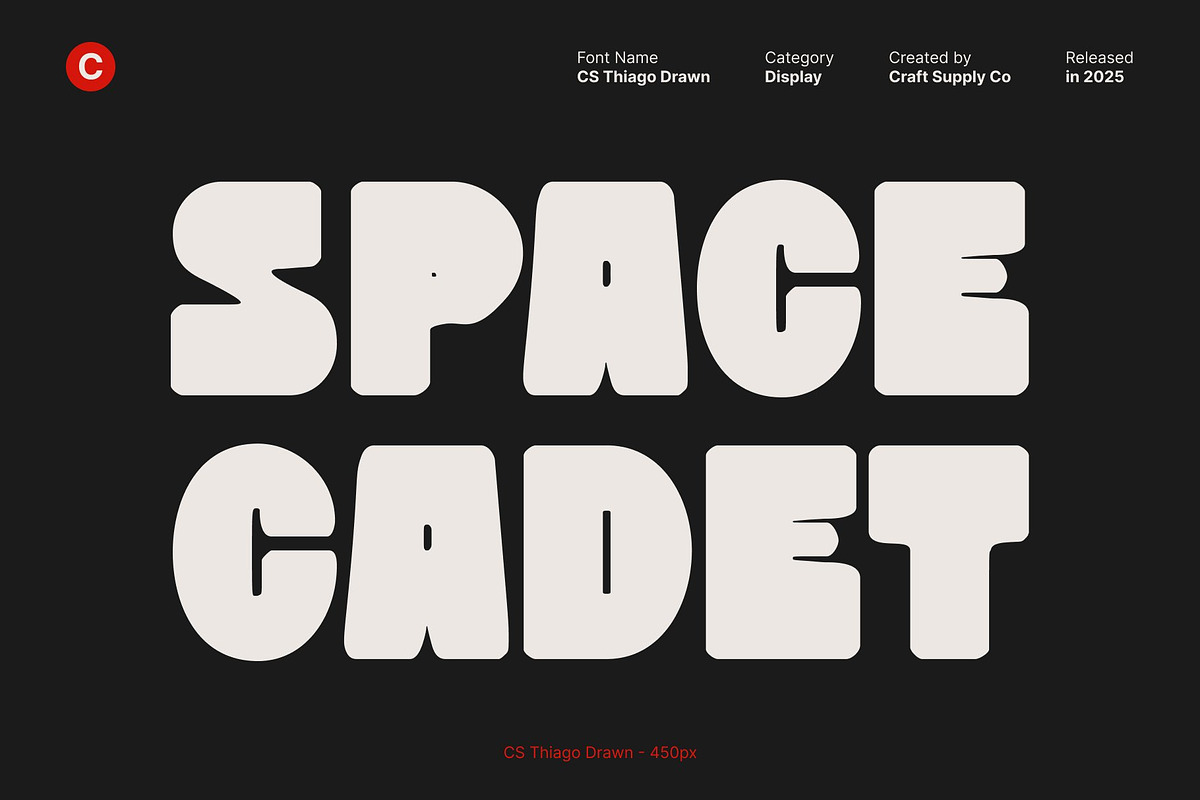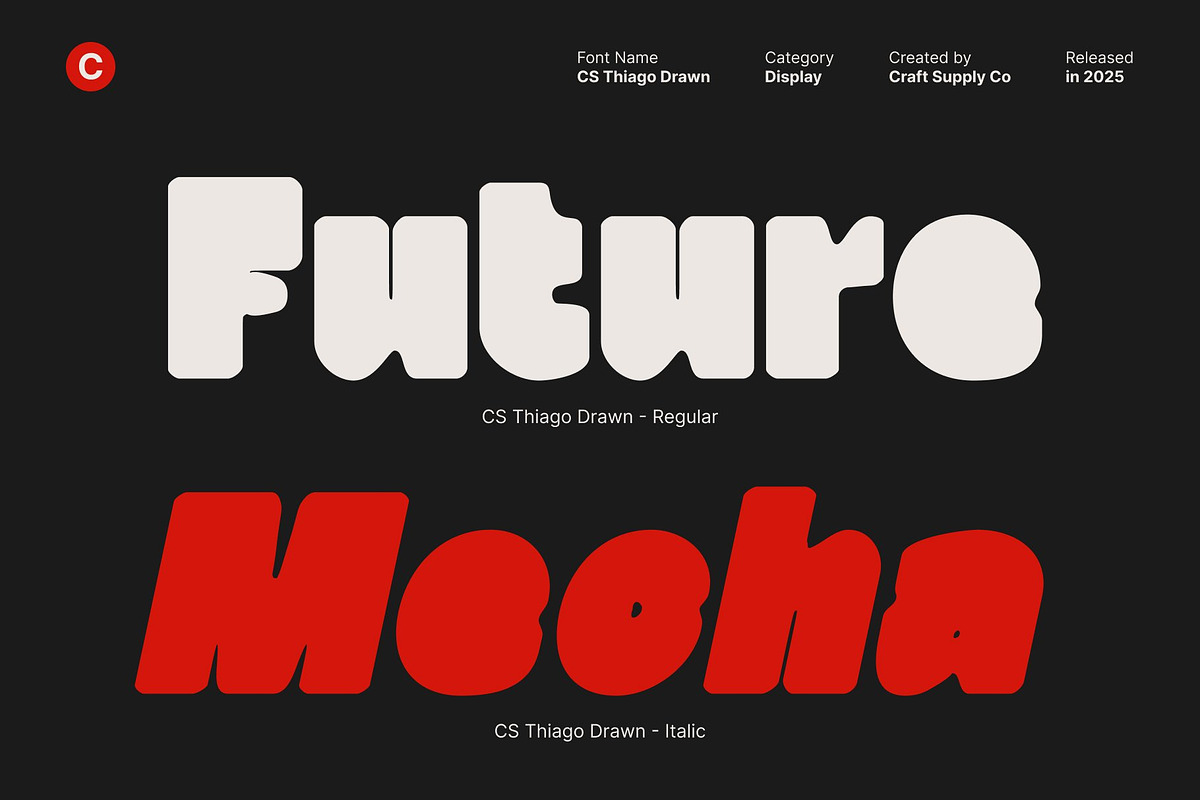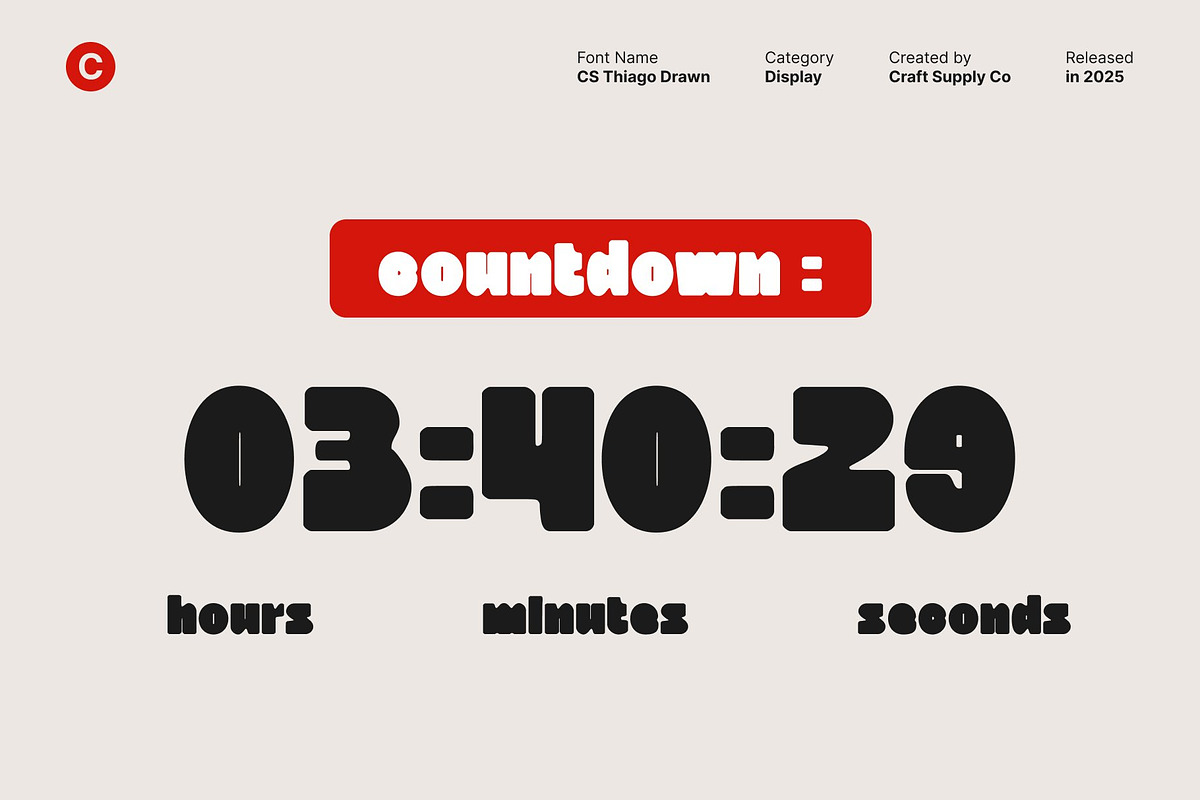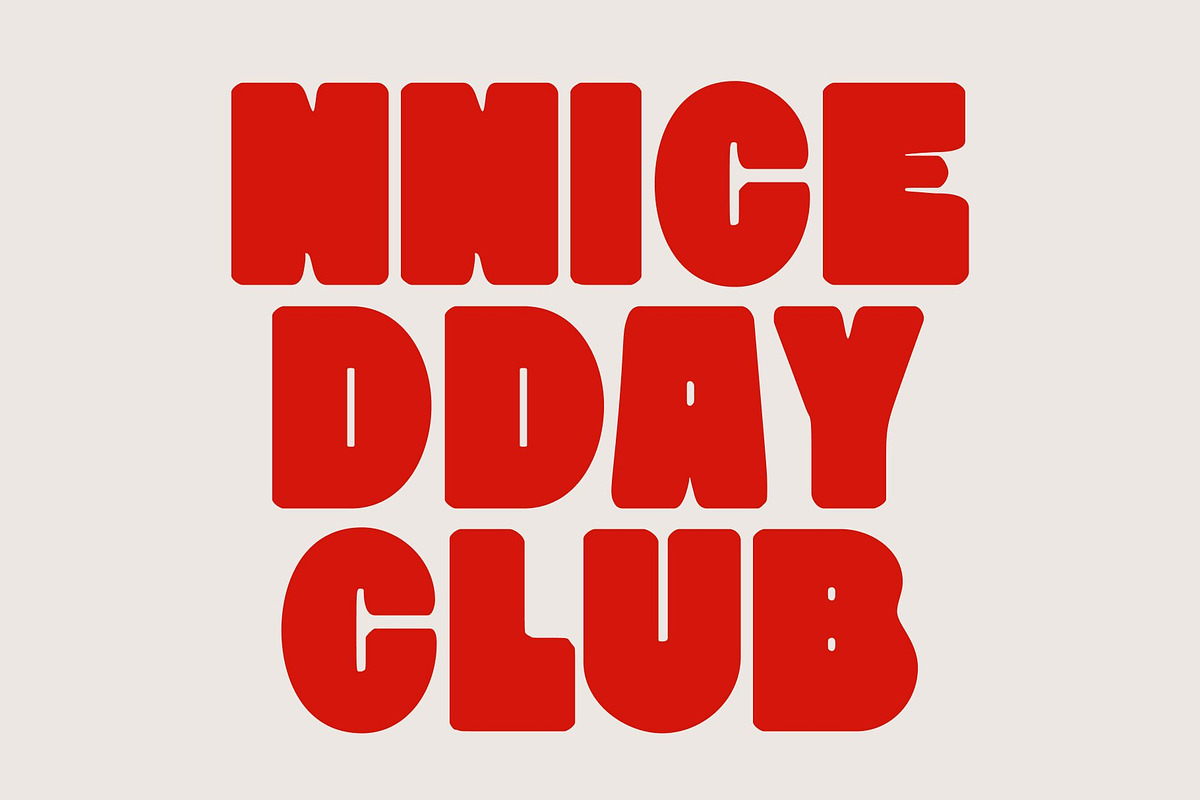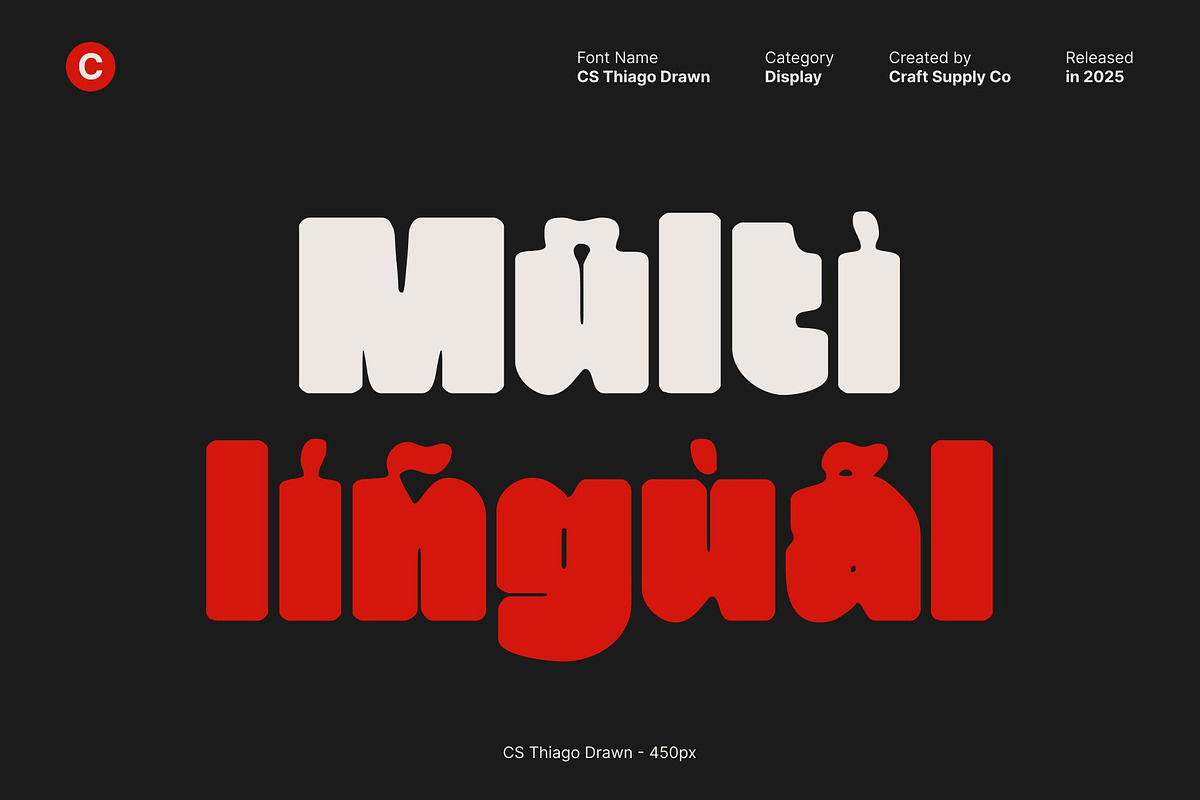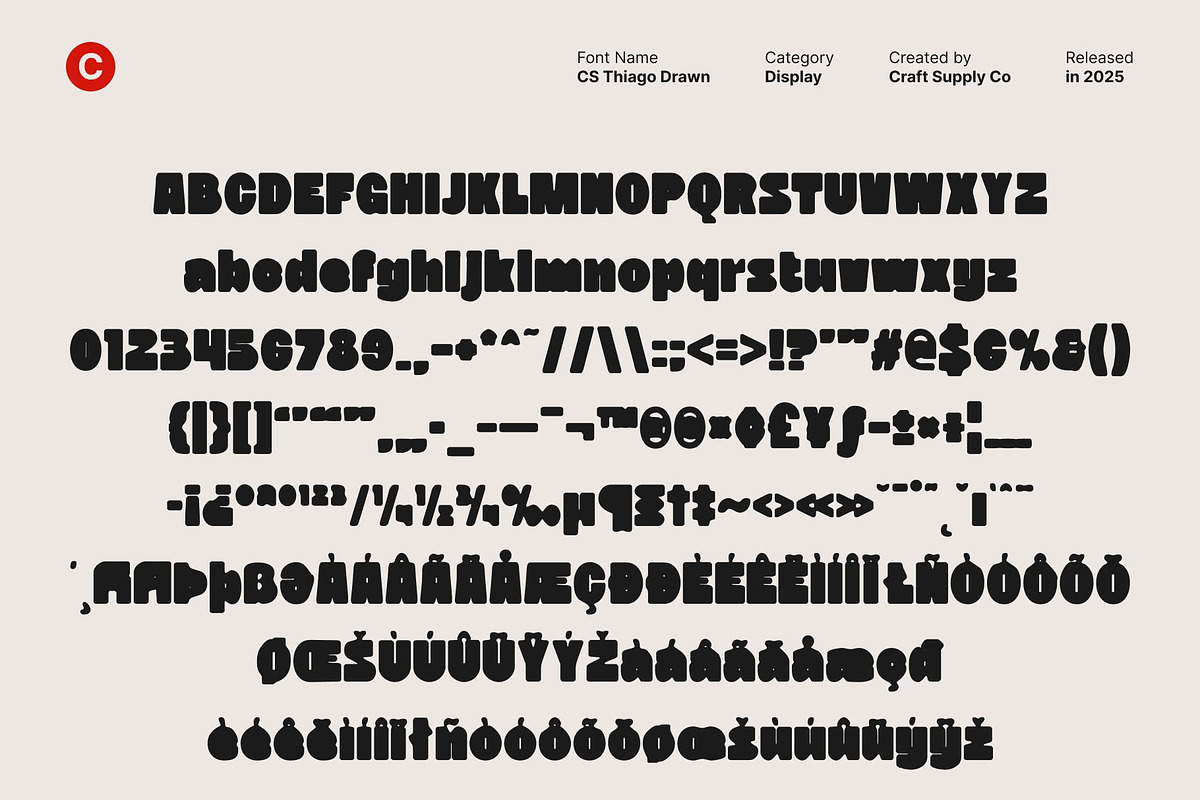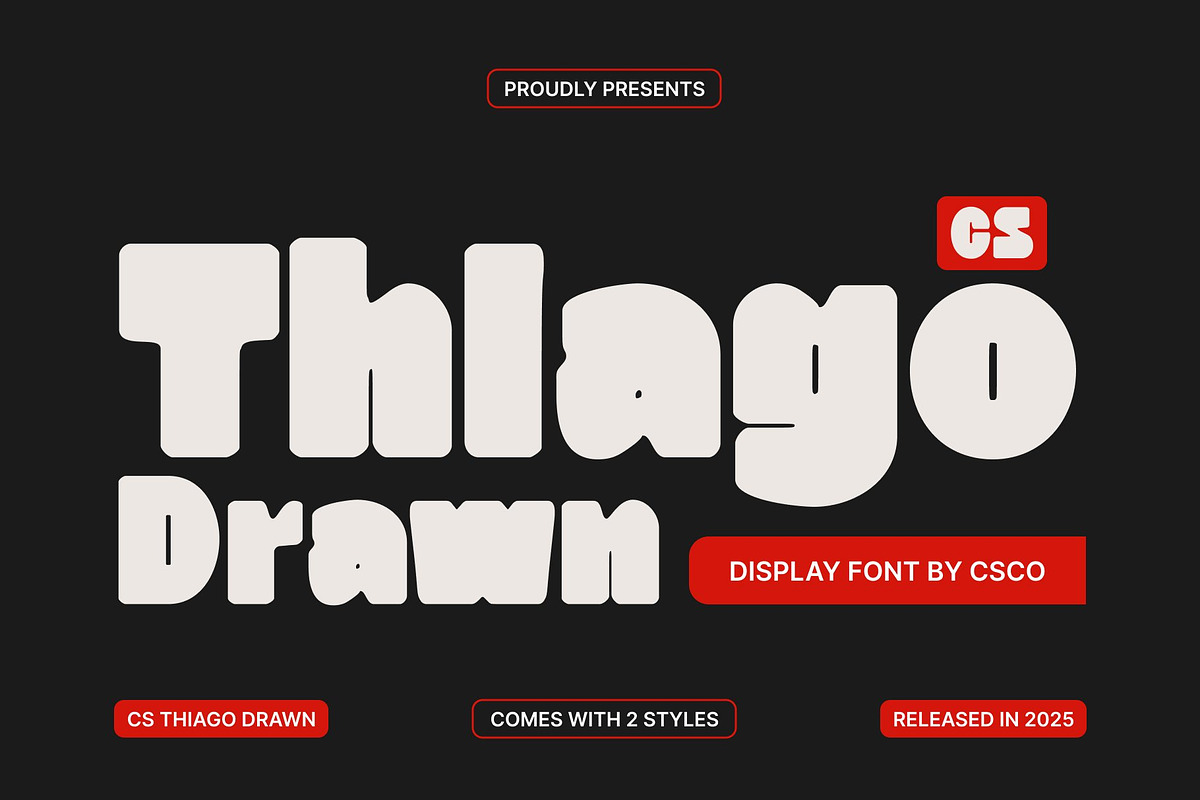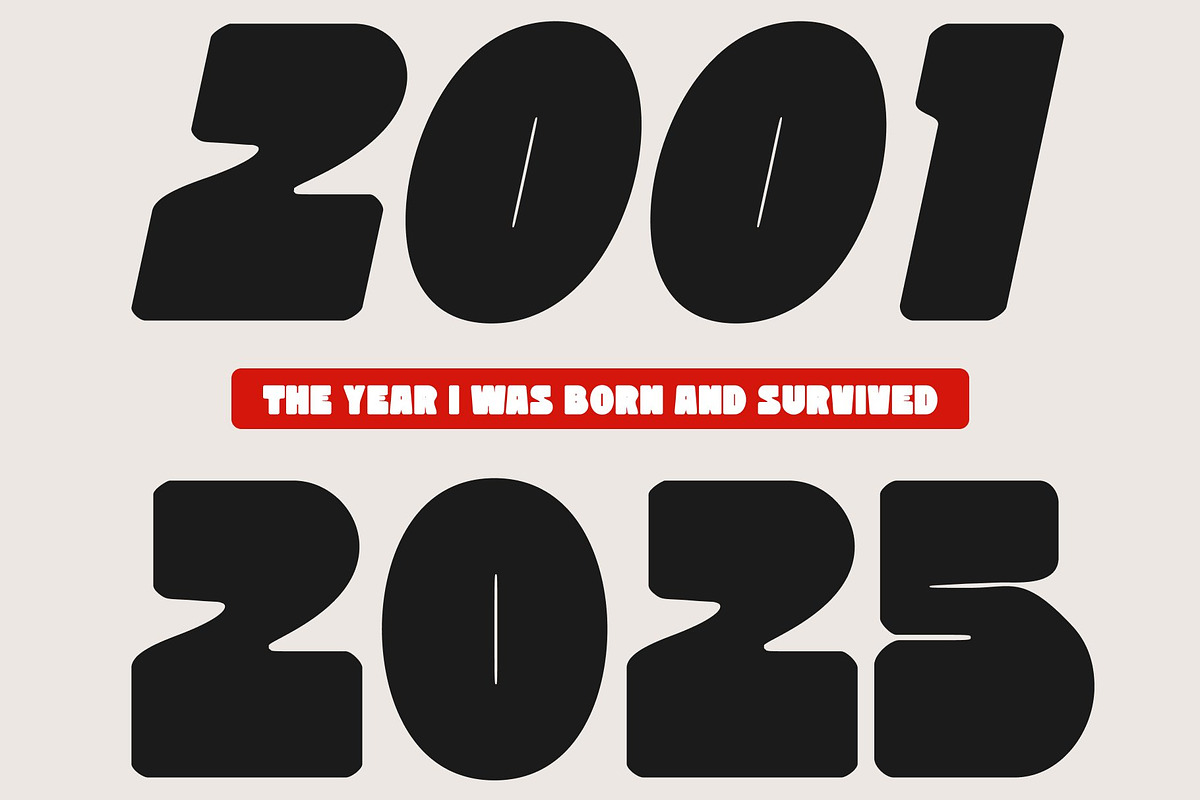
CS Thiago Drawn
CS Thiago Drawn – Modern Sans Serif with Soft Artistic Drawn Texture
Bold, Geometric, and Blocky Shapes This modern sans serif font features bold, geometric, and blocky shapes that immediately command attention. Its contemporary construction creates a clean and powerful visual presence, making every character look structured, confident, and undeniably modern. The strong geometry ensures clarity while giving your designs a solid and professional feel.
Drawn Effect for Soft, Textured Character Enhanced by a subtle drawn effect, this font gains a soft, blended texture that adds warmth and personality. Instead of feeling rigid, the blocky forms become more expressive, artistic, and approachable. The handcrafted touch gives the typeface a unique visual depth, making it stand out from typical geometric fonts.
Perfect for Headlines, Posters, and Impactful Branding Designed to create maximum impact, this font excels in headlines, poster layouts, bold titles, and strong branding identities. Its combination of geometric strength and soft drawn texture makes it versatile capable of delivering both modern precision and artistic charm depending on the design context.
A Dynamic Blend of Structure and Softness This typeface provides a perfect balance between bold geometric style and handcrafted texture. It brings modern professionalism while retaining an artistic edge, making it ideal for designers who want their visuals to feel powerful, expressive, and uniquely engaging.